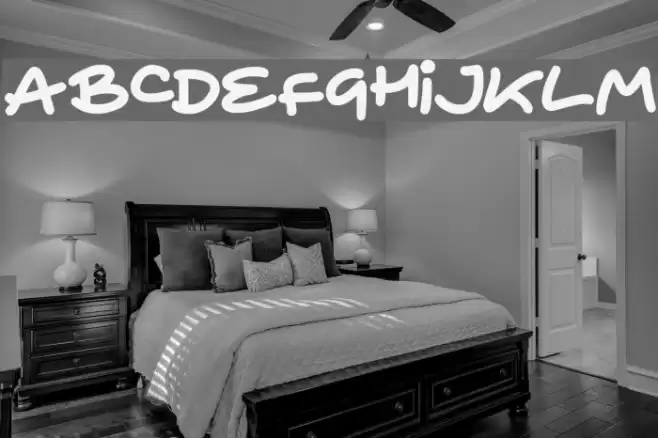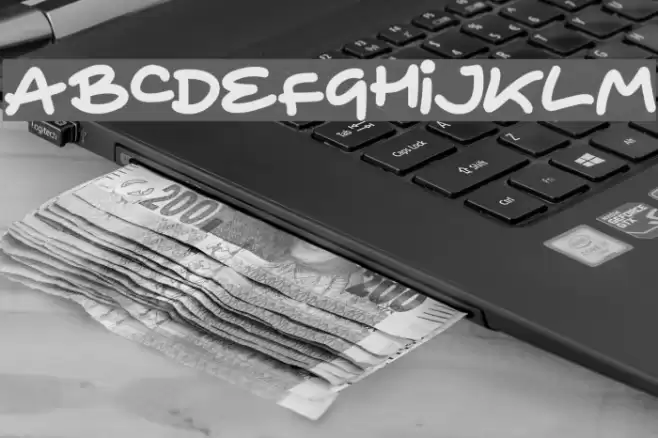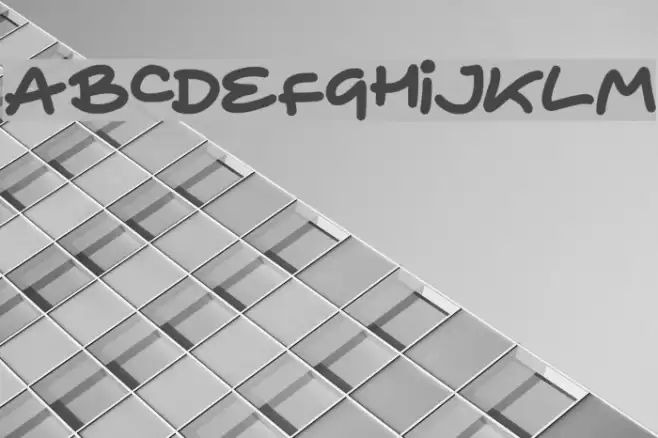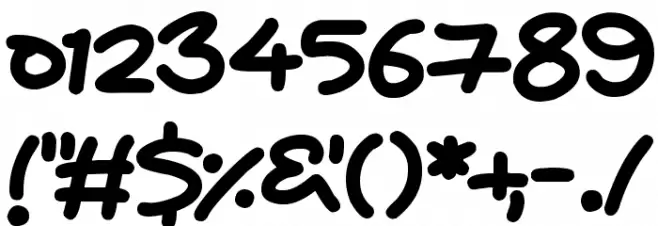
Heart To Heart Font
Heart To Heart Description
This playful and bold font features a handwritten style with smooth, rounded edges and a consistent stroke width. The characters are slightly slanted, giving a casual and friendly appearance. The uppercase and lowercase letters maintain a uniform height, contributing to a cohesive look. The numerals and special characters are designed to match the overall style, ensuring visual harmony. This font's energetic and informal vibe makes it suitable for projects that require a personal touch.
A playful, handwritten font with rounded edges and a casual style from Uncategorized fonts.
- Proposed Projects: Ideal for greeting cards, children's books, playful branding, and social media graphics.
- Overall Style: Casual
- Use Case: Logos, Headlines, Informal Invitations